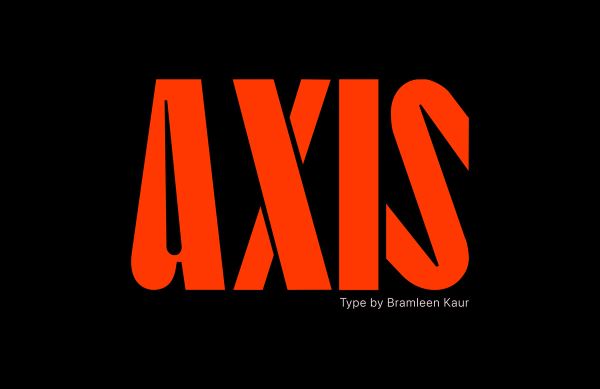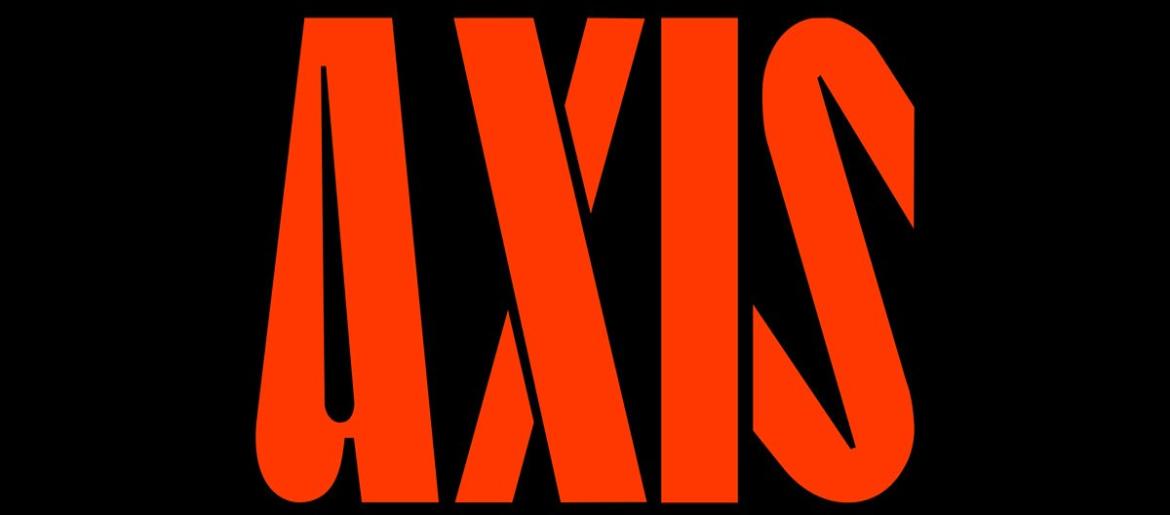
AXIS Font
AXIS by Bramleen Kaur is a bold sans-serif display typeface from New Delhi, India-based designer Bramleen Kaur — published on March 28th, 2026, which is today, making it the most freshly released font in this collection. The project is focused and unambiguous in its intent: bold structure, sharp forms, and high-impact typography built specifically for headlines and visual communication. T A clean, assertive sans-serif for designers who need a typeface that commands the space it occupies. Free for personal use.